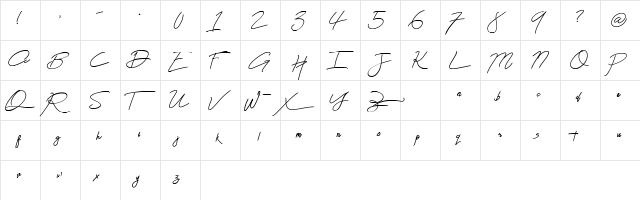
The Bad Weather Demo Regular
| Foundry | Knackpack Studio |
| Designer | Knackpack Studio |
Design Context for The Bad Weather Demo Typeface
The Bad Weather Demo is a composed and adaptable typeface that performs quietly and consistently across a wide range of design contexts.